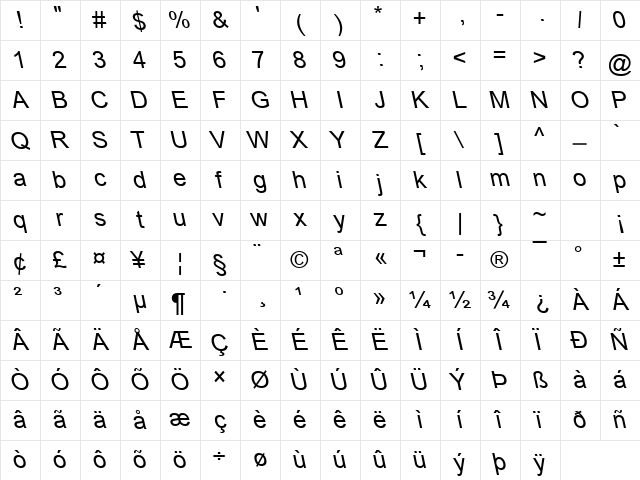
Arial Backslanted Regular
Design Context for Arial Backslanted
Arial Backslanted is a composed and adaptable typeface that performs quietly and consistently across a wide range of design contexts. The slanted form adds forward momentum and visual energy.
Pro Tip: Use Arial Backslanted for emphasis, pull quotes, and subheadings where its slanted energy can add rhythm to the layout.